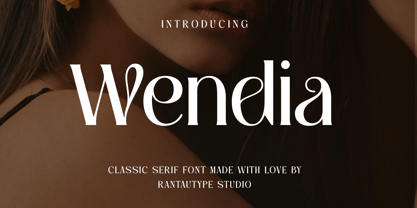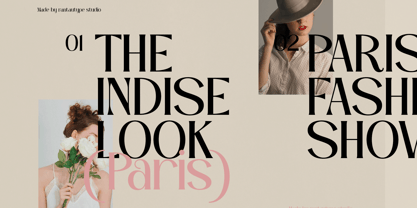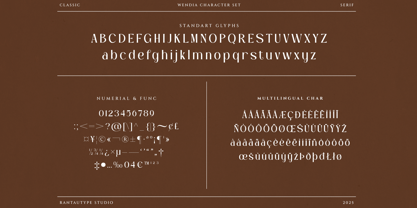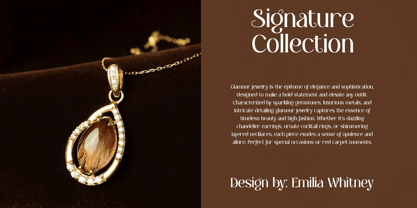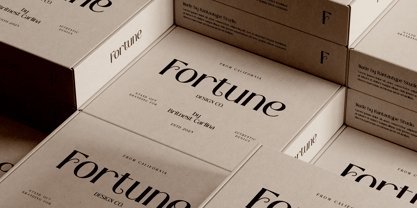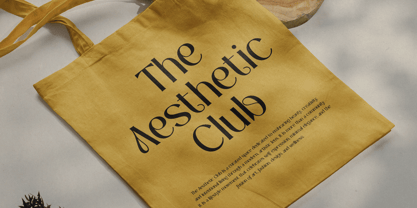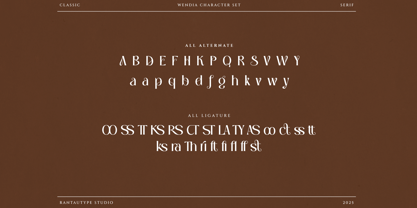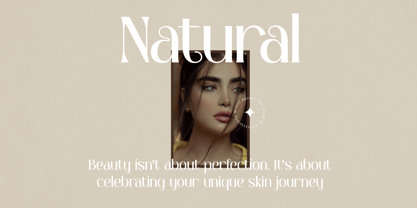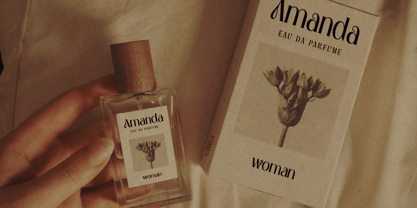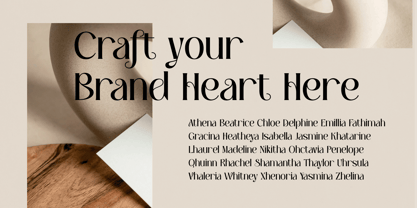
Wendia
by RantauType
The Wendia Font Family was designed by Yudi Pratama Chandra and published by RantauType. Wendia contains 2 styles and family package options. More about this family
Wendia is classic serif font embrace vintage and retro look. Wendia is a perfectly choice for any creative endeavor, chic, lifestyle design such as logotype, advertisements, watermark on photography, stationery, branding project, display and magazine, invitation, corporate brand, product design, label, business project and many other project with elegant touch.
• Standart Glyphs
• Numberial and Functional
• Ligature and alternate
Designers: Yudi Pratama Chandra
Foundry: RantauType